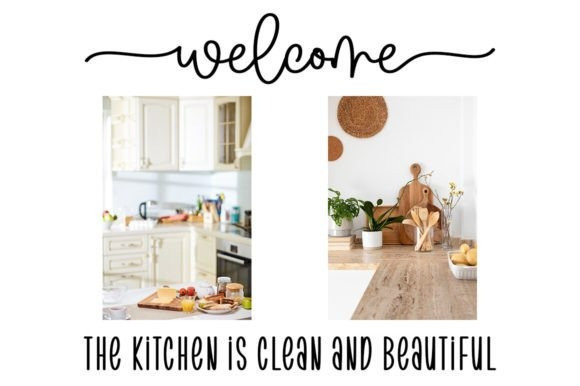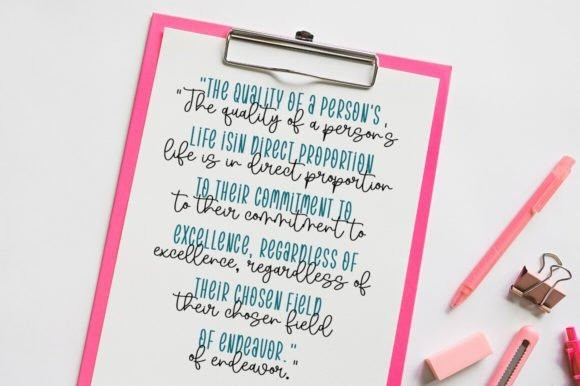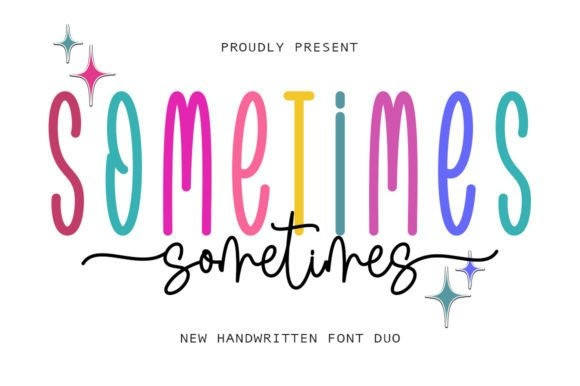
Sometimes Duo Font
Sometimes Duo Font is a stylish and delicate duo font (sans serif and script) suitable for a wide spectrum of applications. From greeting cards to headlines, this font will guarantee a romantic touch to each of your creations! Sometimes Duo is PUA encoded which means you can access all of the glyphs and ligatures with ease.